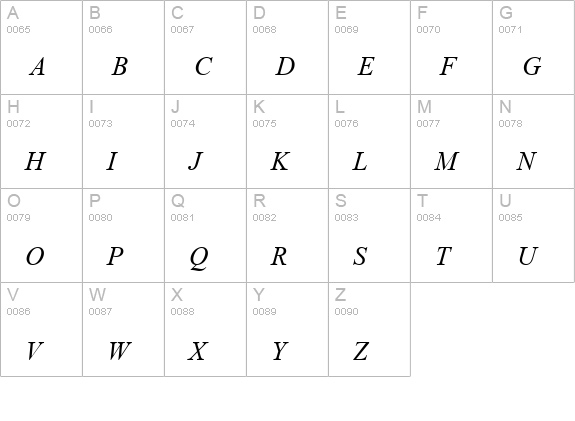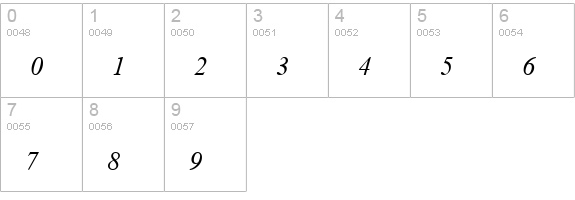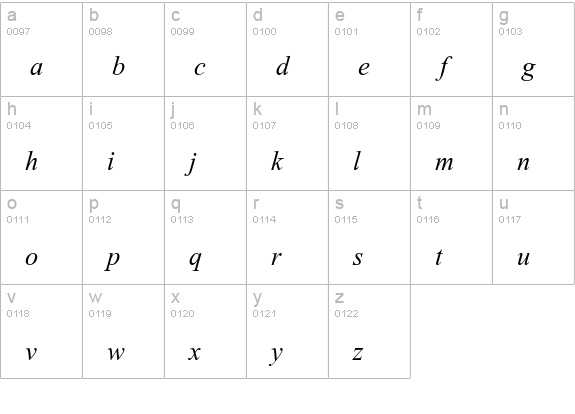
Angsana New Italic Font Details
Angsana New Italic is a distinctive, italic variant in the Angsana typeface family \xE2\x80\x94 well suited to design and typography projects.
Angsana New Italic font is a beautifully crafted typeface that exudes elegance and sophistication. With its sleek and modern design, this font is perfect for adding a touch of style to any project. The italicized version of Angsana New brings a sense of dynamism and flair, making it ideal for conveying a sense of movement and energy in your designs. The fluid curves and graceful strokes of Angsana New Italic font make it a versatile choice for a wide range of creative projects, from branding and advertising to editorial design and web graphics. Whether you're looking to create eye-catching headlines or elegant body text, this font has you covered. Best of all, Angsana New Italic font is available for free download at FontsMarket.com. So you can easily add this stunning typeface to your font library without any cost. Don't miss out on the opportunity to enhance your designs with the timeless beauty of Angsana New Italic font.